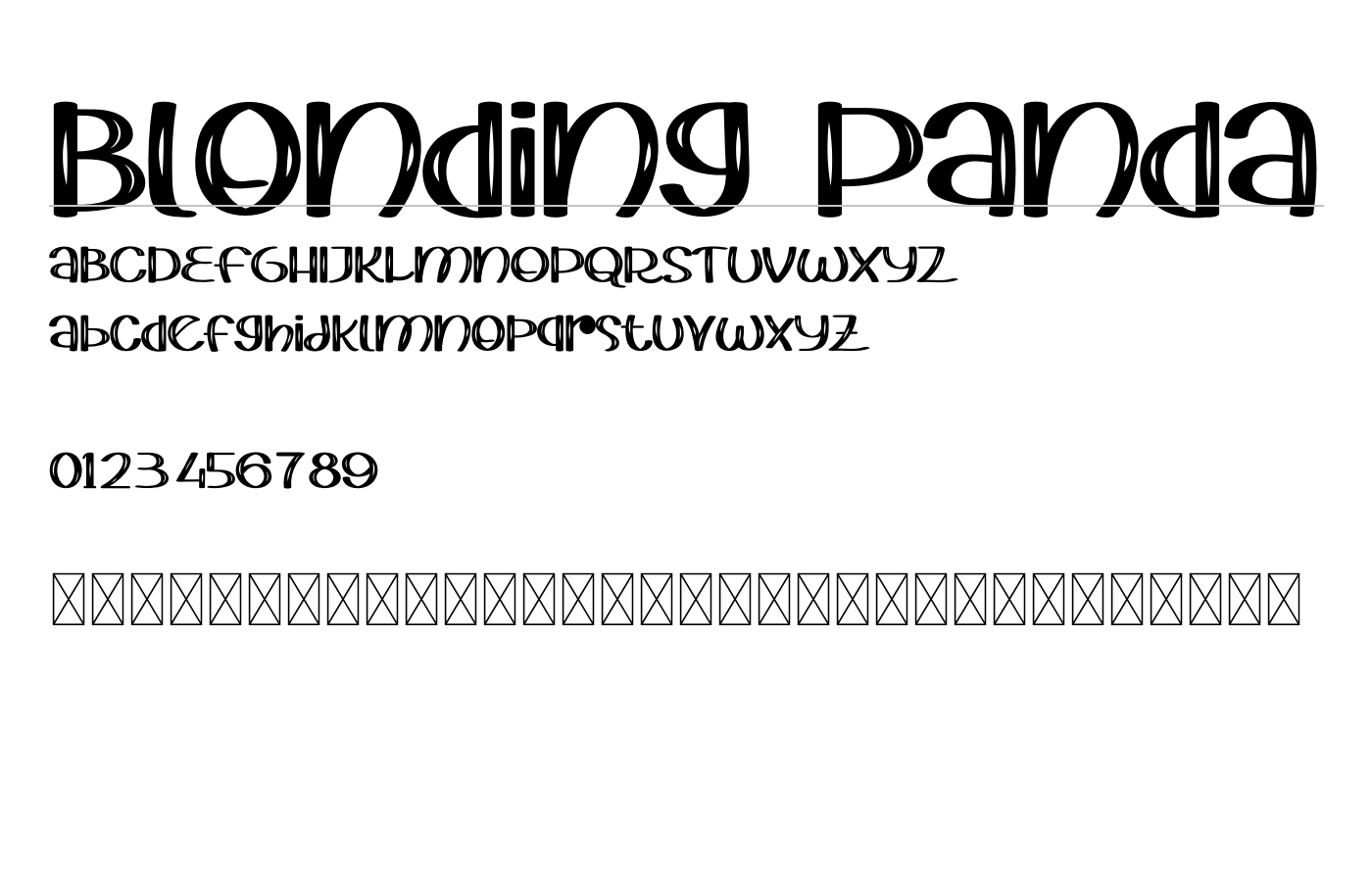
Blonding Panda is a whimsical sans serif font with a playful, hand-drawn feel highlighted by its narrow width and uneven stroke thickness. Its unique letterforms, including single-story "a" and stylized curves, create a quirky and informal personality that makes it ideal for creative projects, children’s materials, or casual branding. This font works best in headlines, logos, or decorative text where its charming, lively style can truly stand out.
Blonding Panda Font
About Blonding Panda Font
| Font family | Blonding Panda Font |
| Designer | Rofiq Soelta |